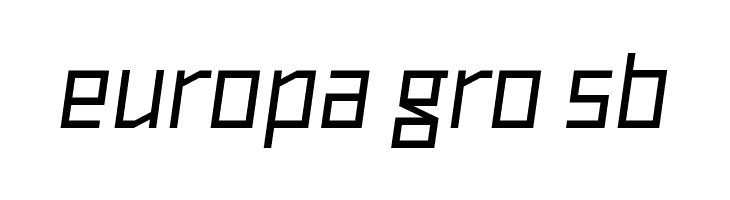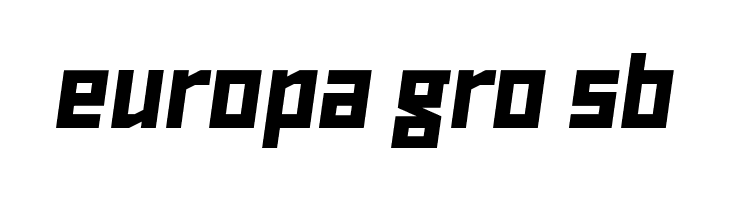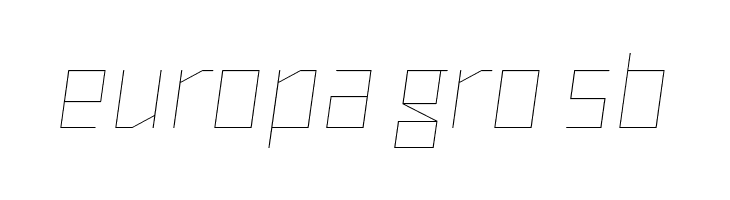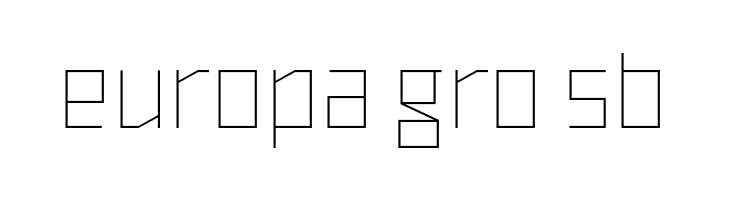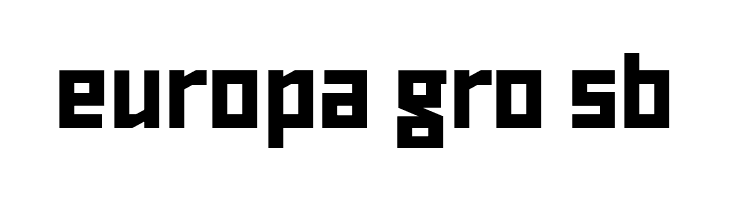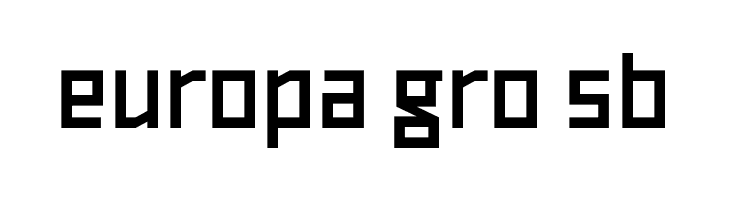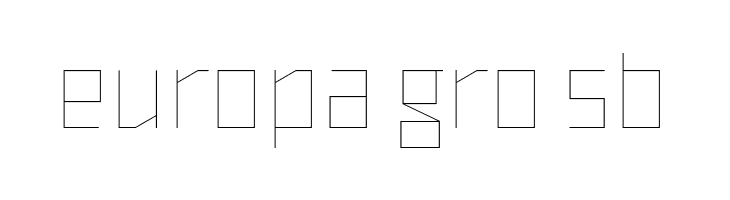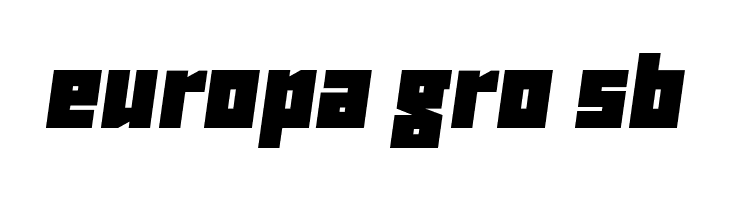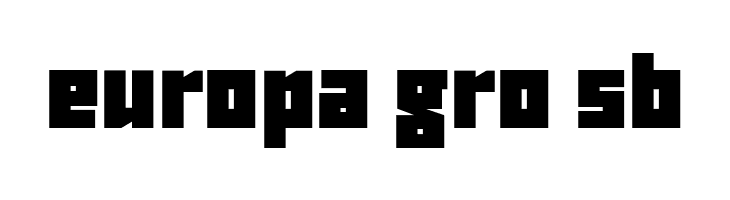
A geometric, italic font with sharp angles and a modern, technical style.
A bold, geometric font with angular, blocky letterforms.
A bold, angular, and italic typeface with a modern, geometric style.
A bold, geometric font with a modern and structured appearance.
A bold, italicized, modern geometric font with angular characters.
A bold, geometric font with blocky, angular letterforms and a modern style.
A bold, geometric italic font with a modern and dynamic style.
A geometric, hairline font with a modern, minimalist design.
A modern, geometric italic font with thin lines and angular shapes.
A modern, geometric italic font with clean lines and sharp angles.
A geometric, modern font with sharp angles and a structured design.
A modern, geometric font with angular design and italic style.
A geometric and modern font with consistent stroke width and angular shapes.
A modern, geometric italic font with clean lines and sharp angles.
A geometric and modern font with clean lines and angular shapes.
A geometric, minimalist font with thin, angular strokes.
A modern, geometric, thin italic font with precise lines and angles.
A bold, geometric font with strong, blocky letterforms and high contrast.
A thin, elongated font with a rough, hand-drawn texture.
A bold, modern monospaced font with clear, uniform characters.
A bold, italic monospaced font with a modern and sleek design.
A modern, monospaced italic font with geometric shapes and uniform stroke widths.
A clean, modern monospaced font with uniform character width.
A clean and modern sans-serif font with high legibility.
A modern sans-serif font with a slight italic slant and uniform stroke width.
A bold, geometric font with strong, angular shapes and a modern look.
A bold, italic font with angular, geometric characters and a modern, dynamic style.
A bold, geometric font with angular lines and a modern look.
A bold, italicized font with geometric shapes and angular edges.
A bold, geometric font with sharp angles and a modern aesthetic.
A bold, italicized font with a modern, geometric style.
A bold, geometric font with sharp edges and a strong presence.